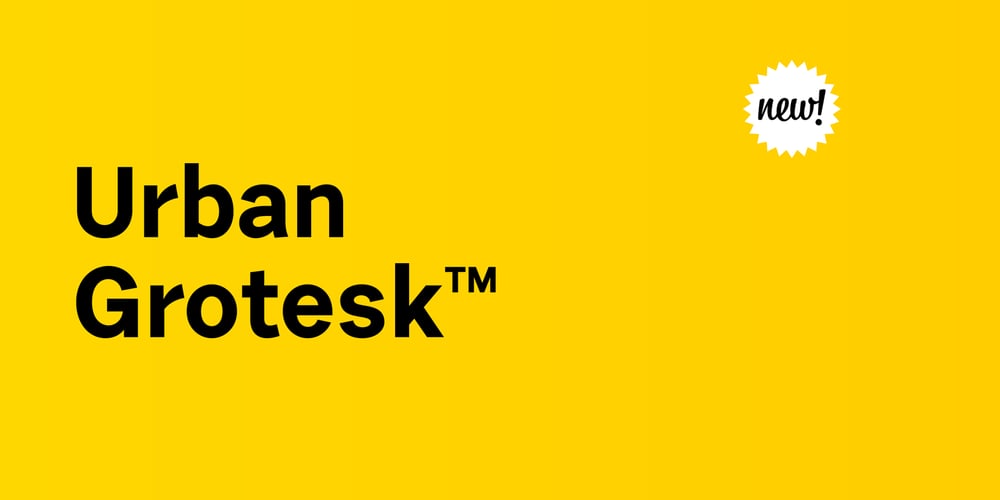
Urban Grotesk Font Family was designed by Tomáš Brousil and published by Suitcase Type Foundry. Urban Grotesk contains 13 styles and family package options. Urban Grotesk attempts to follow the best of traditions of Grotesk typefaces: rounded arches, slightly thinner connecting strokes and a vertical shadowing axis, where outstrokes are terminated strictly in perpendicular to the stroke direction. The primary characteristics are the connection of the rounded stroke to the stem, a round dot, lower and more thrifty uppercase, and generous numerals. The width proportions of characters is almost unified, the text colour creates a unified grey area on a page. An airy metric aids good legibility in shorter texts.